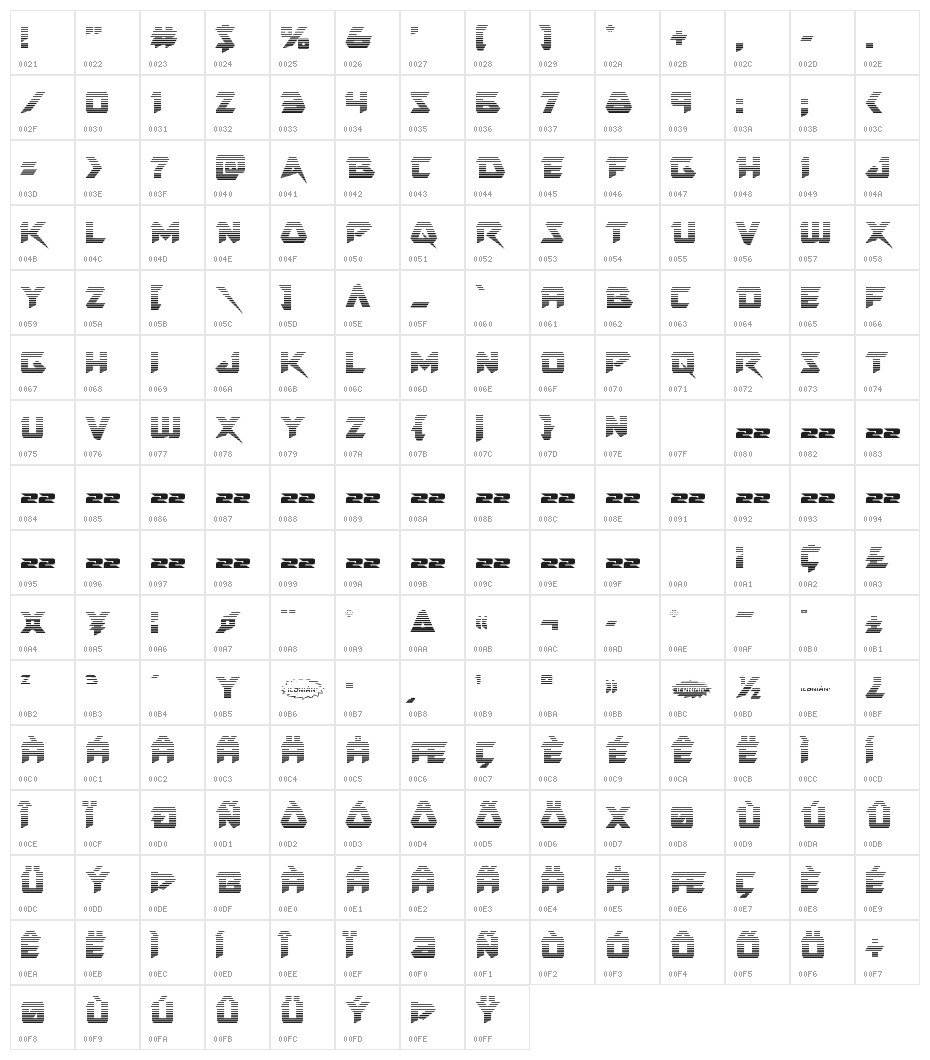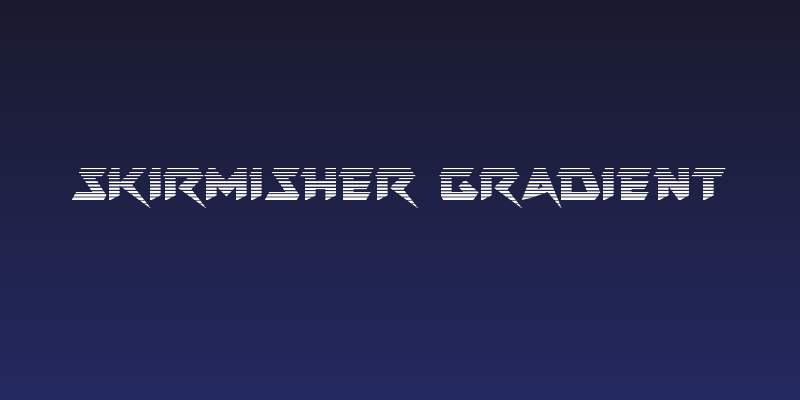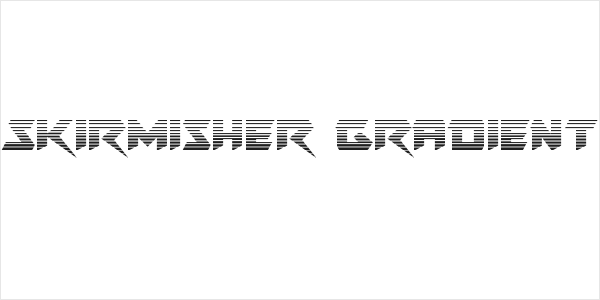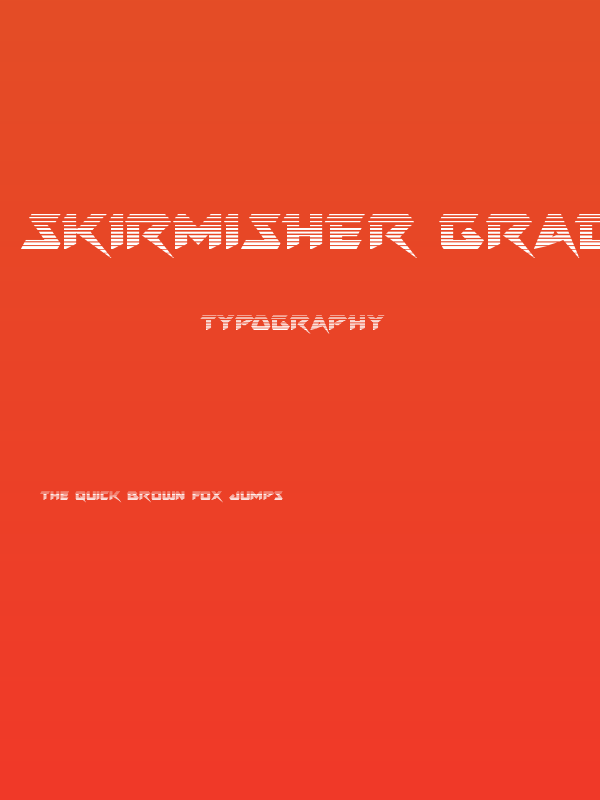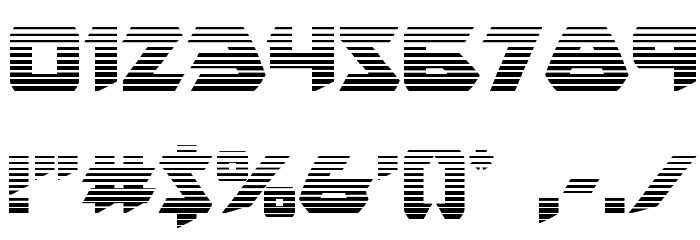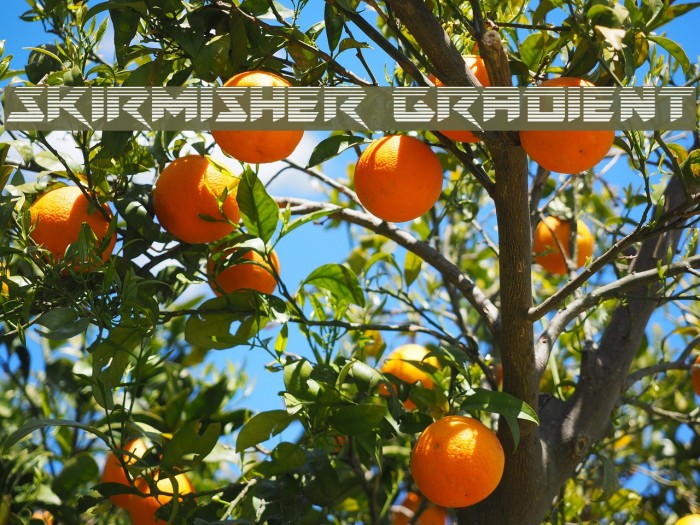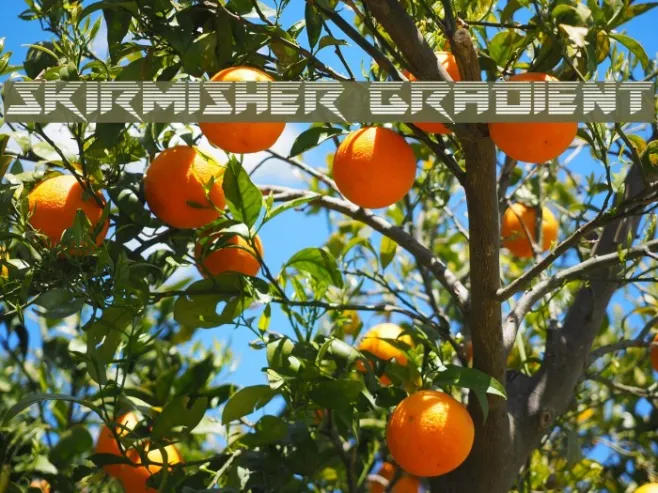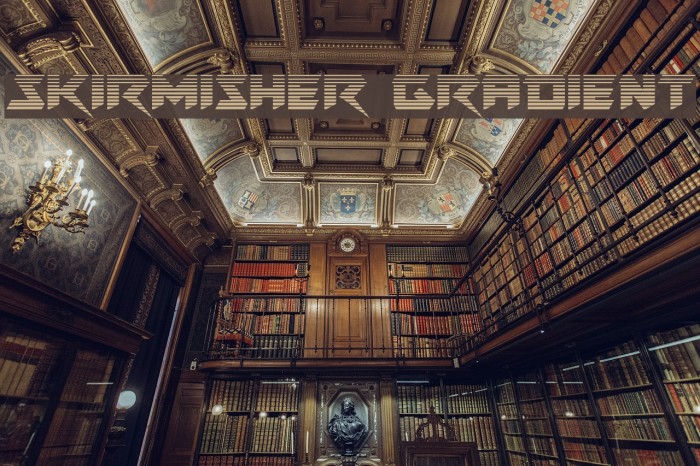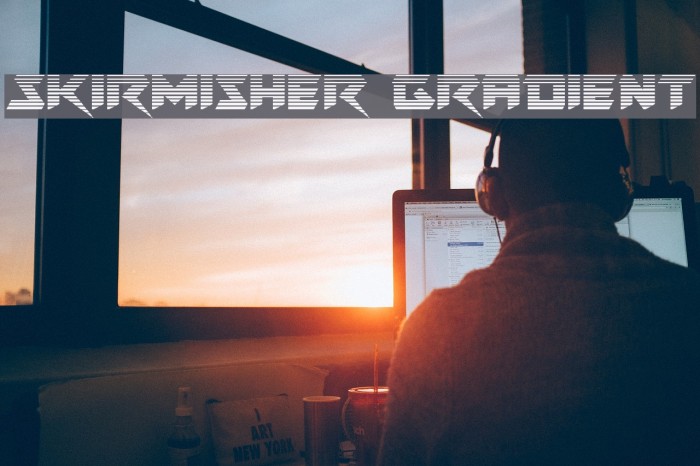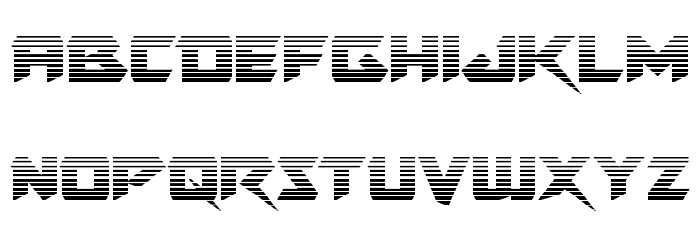
Skirmisher Gradient Font
Skirmisher Gradient Description
This font features a bold, futuristic design with a distinct striped pattern running horizontally through each character. The angular, geometric shapes give it a dynamic and edgy appearance, making it stand out in any design. The uppercase and lowercase letters maintain a consistent style, while the numbers and special characters integrate seamlessly with the overall aesthetic. The font's unique gradient effect adds depth and movement, enhancing its visual appeal.
| Proposed Projects | Ideal for sci-fi themed projects, video game titles, tech branding, and modern posters. |